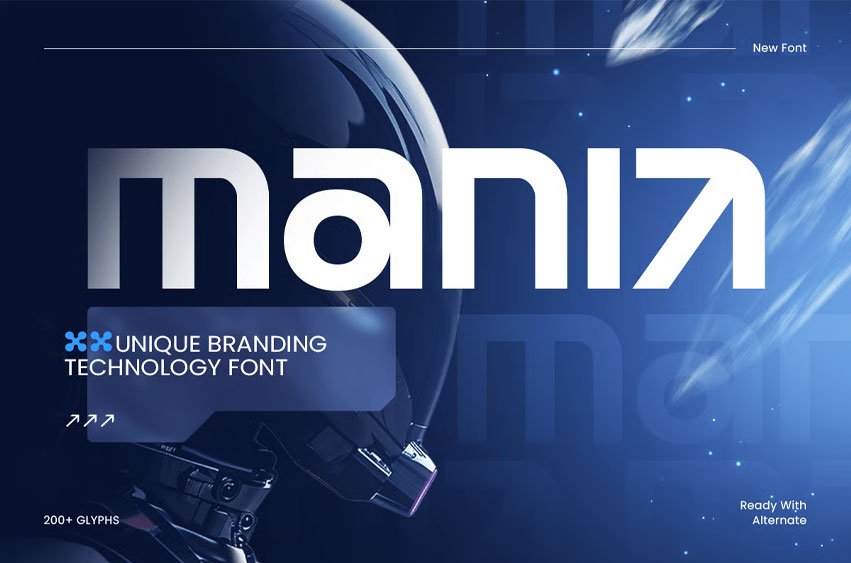
Mania Font is a unique branding technology font designed to give your projects a bold and innovative edge. With sleek geometric letterforms and futuristic styling, MANIA is perfect for modern tech branding, digital platforms, and creative logos that demand originality. Its balance of uniqueness and professionalism makes it versatile across industries—from startups and software companies to futuristic campaigns and digital product branding. Whether for print or digital, MANIA ensures your brand identity stands out with clarity and style.
MANIA – Unique Branding Technology Font Features
- Bold, futuristic letterforms with a unique tech-inspired style
- Perfect for logos, branding, UI/UX, and modern display designs
- Includes uppercase, lowercase, numerals, and punctuation
- Distinctive and professional for versatile design use
- OpenType features for advanced typographic flexibility
Stand out from the crowd with MANIA – the perfect font for unique, tech-driven branding.